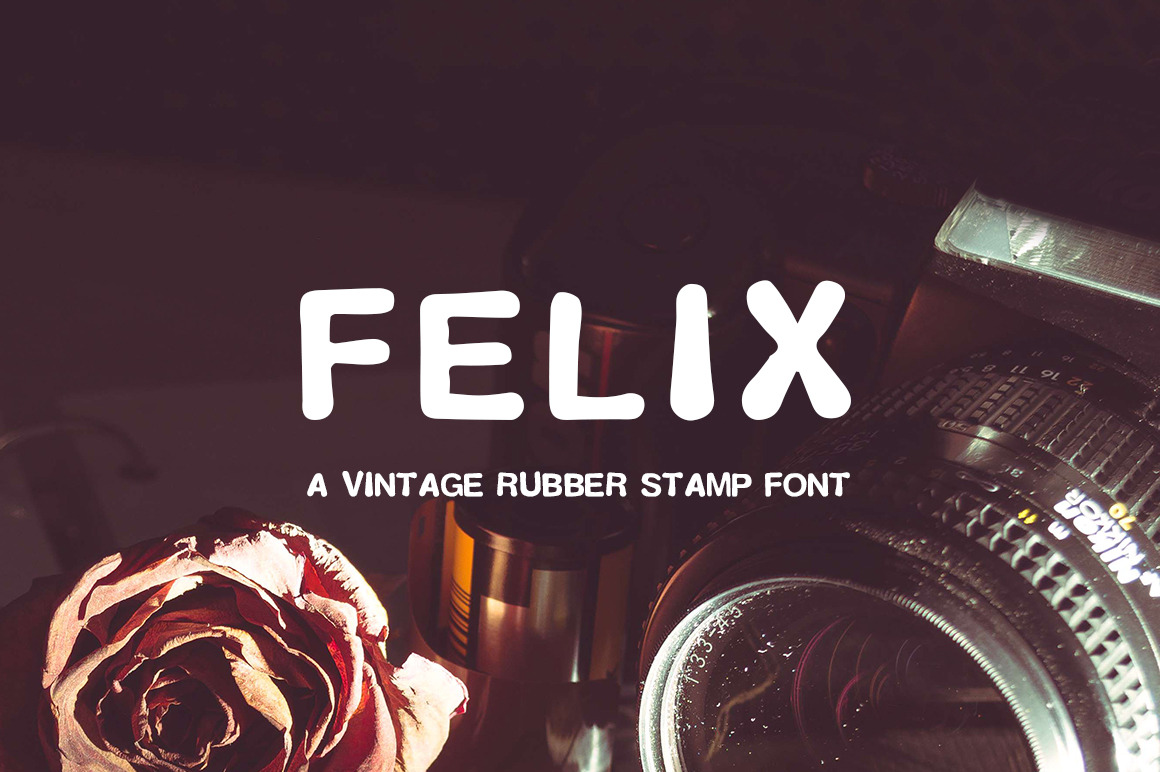
Felix Vintage Rubber Stamp Font
Presenting FELIX a headline font created with a vintage rubber alphabet stamp set.
An uppercase font with numbers and a selection of punctuation, Felix is fun to use and cute to look at! Great for laying over imagery with it's bold letterforms.